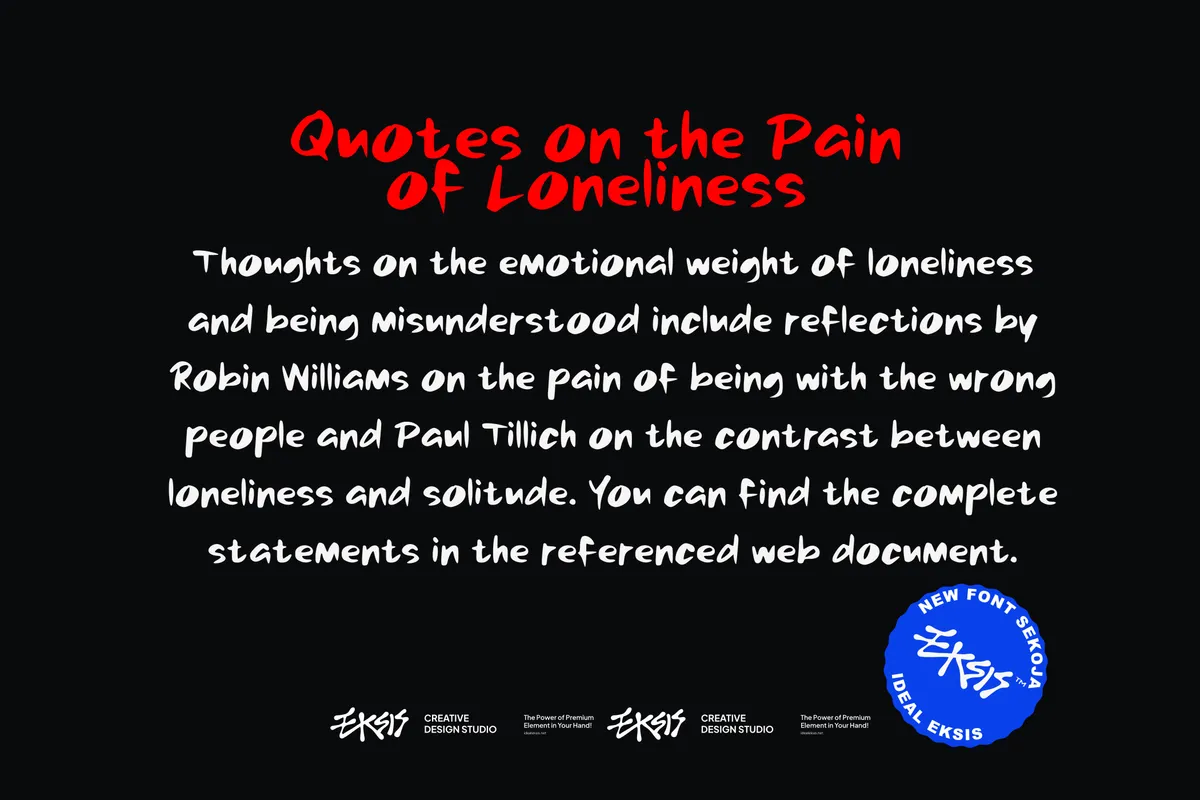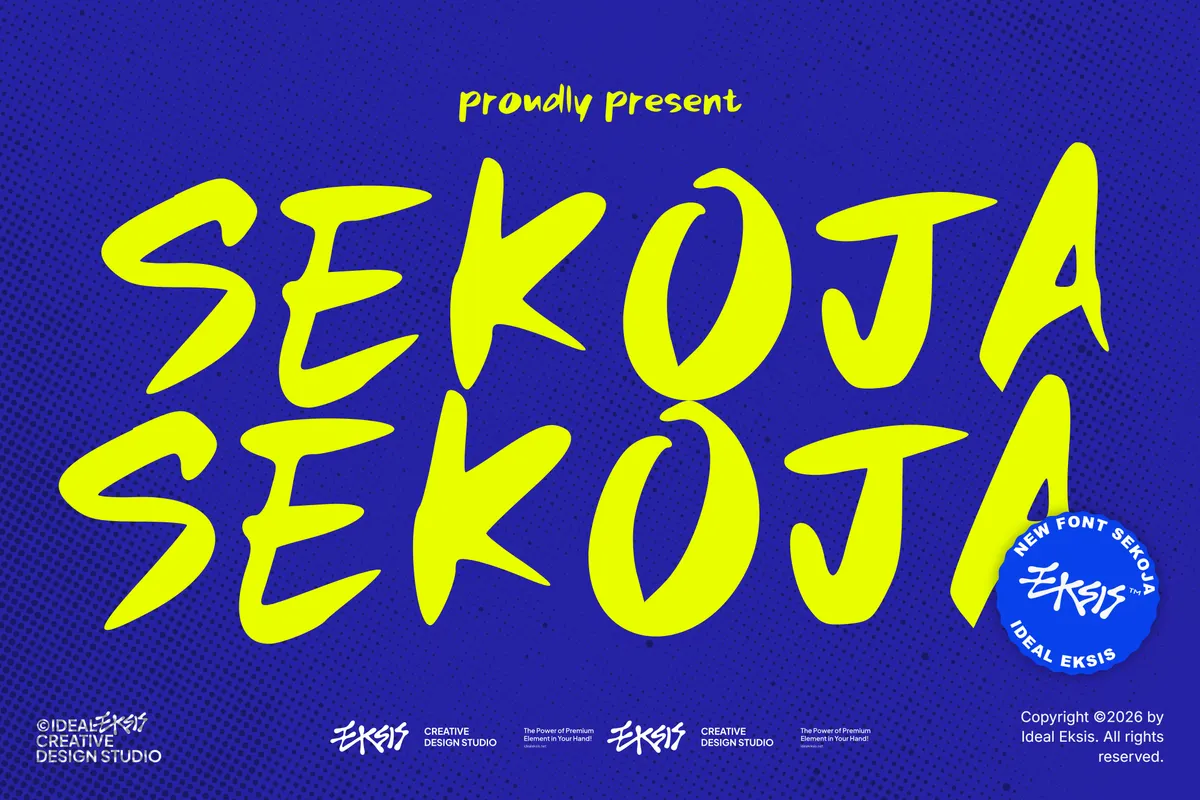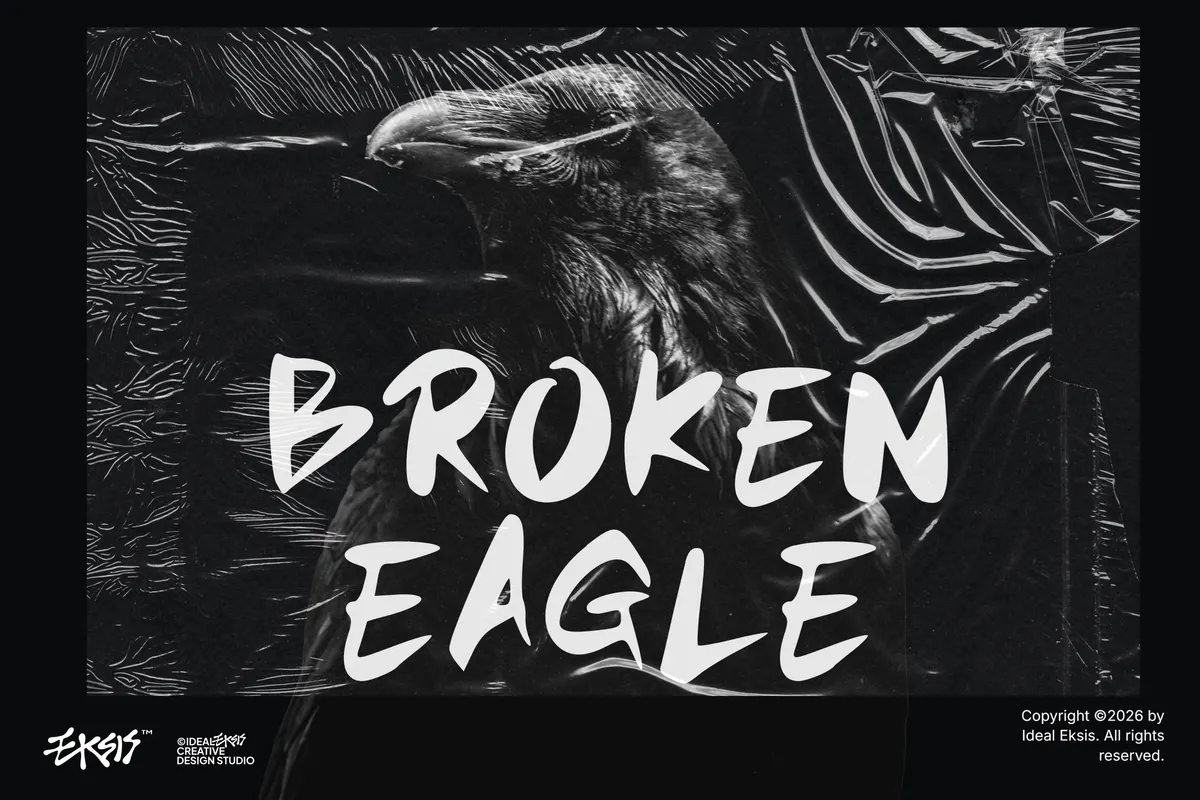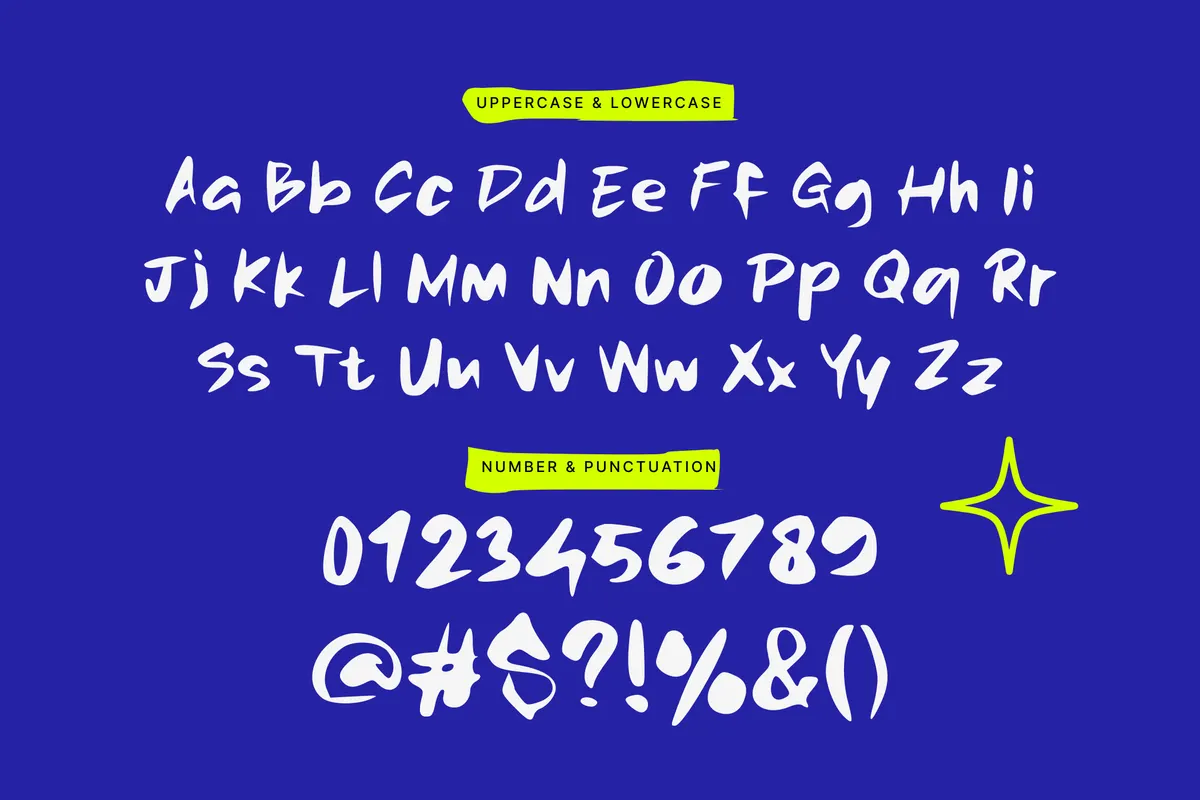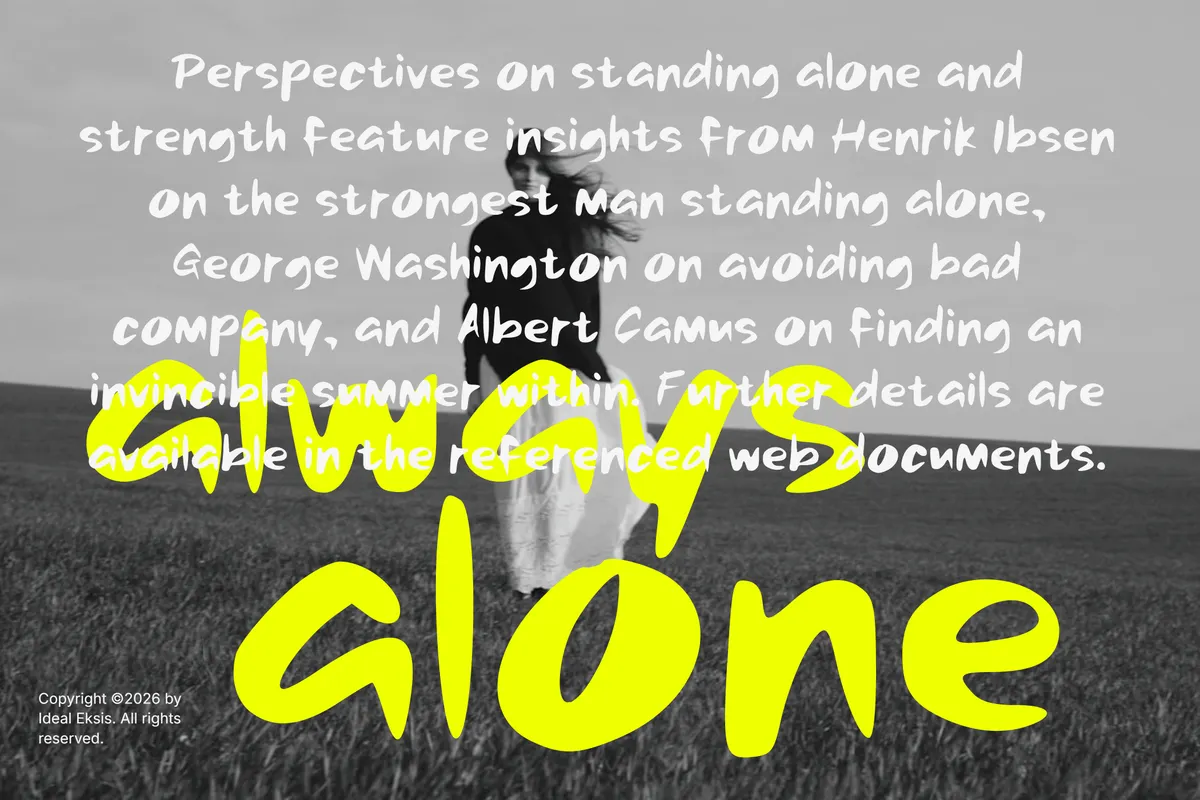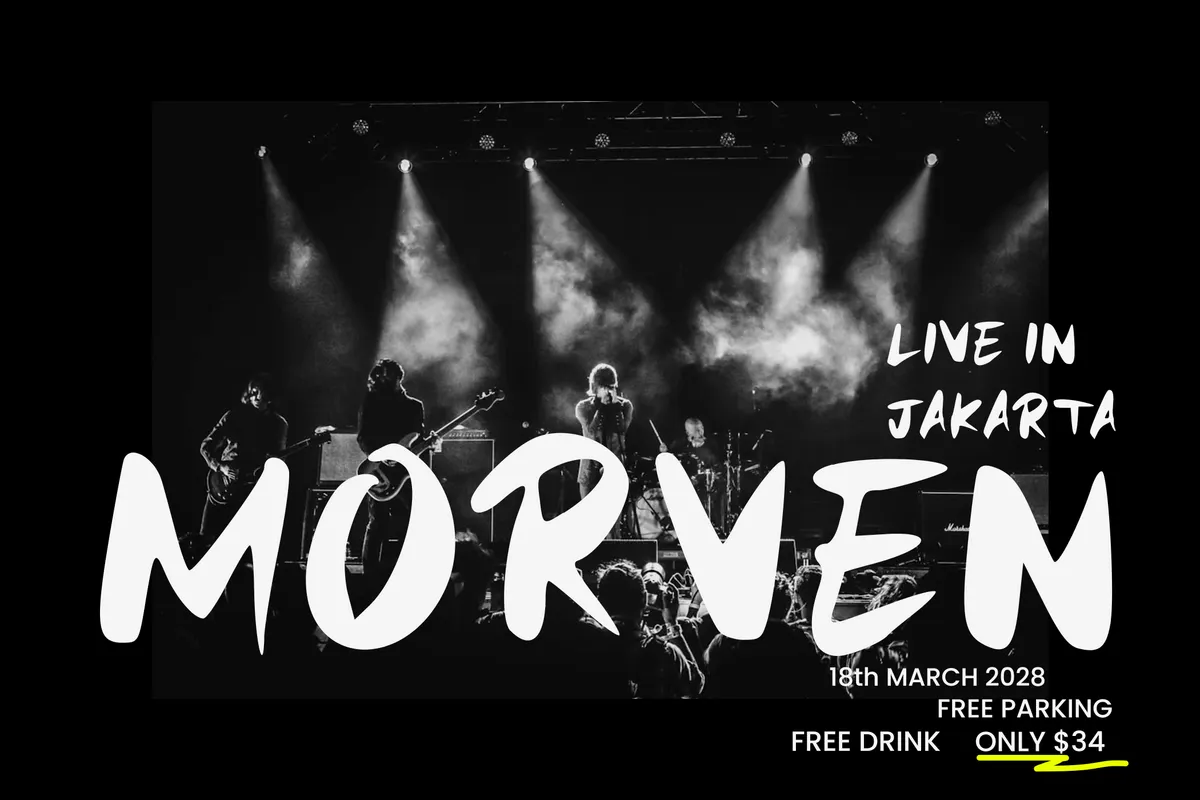
Sekoja Expressive Brush Font
Sekoja is a hand-drawn brush font with the wet edge of a loaded marker and the dry skip of one that is running out. The strokes tilt right, the baseline wanders, and the caps and lowercase are drawn as two separate alphabets instead of one scaled twice.
The single weight goes loud at poster size and holds together down to a garment label. Use it for gig posters, skate graphics, streetwear prints, sticker sheets, album titles, energy drink labels, sports campaigns, and zine covers.
- one style: Regular;
- uppercase & lowercase, drawn separately;
- numerals, punctuation & symbols;
- kerning pairs;
- Latin-1 Western European;
- 215 glyphs.